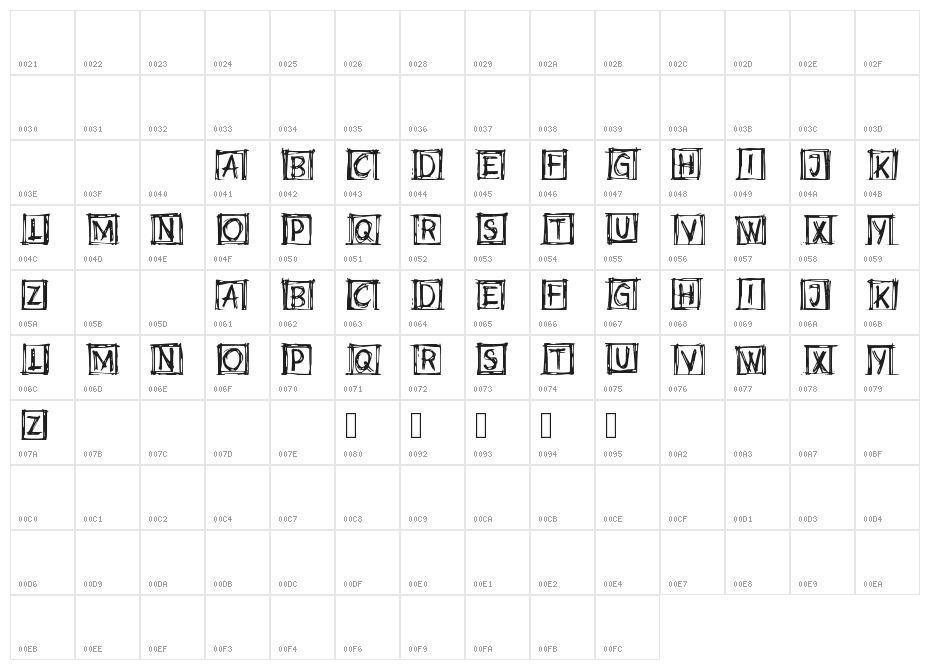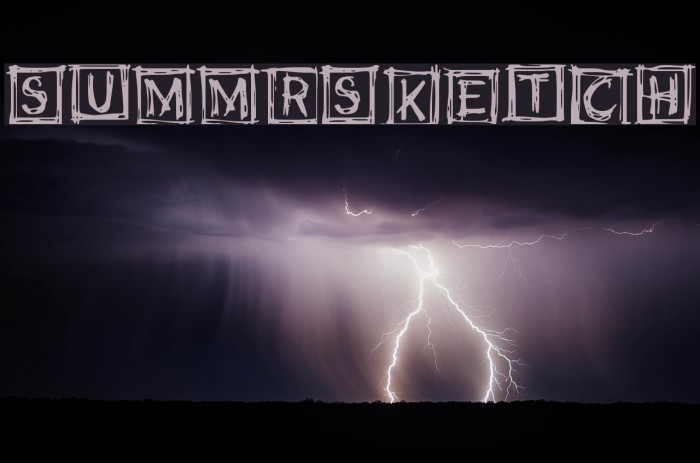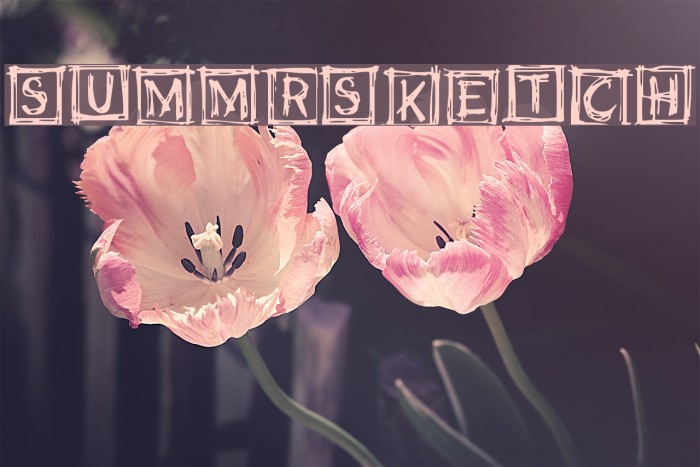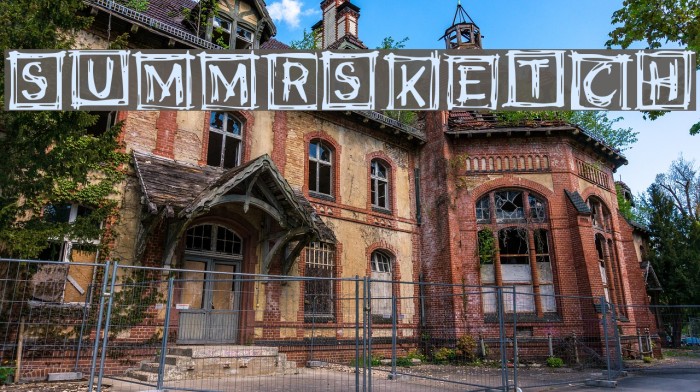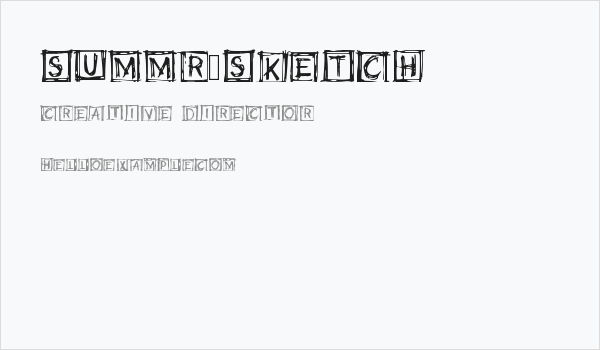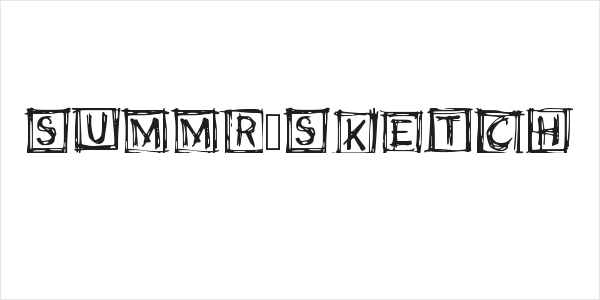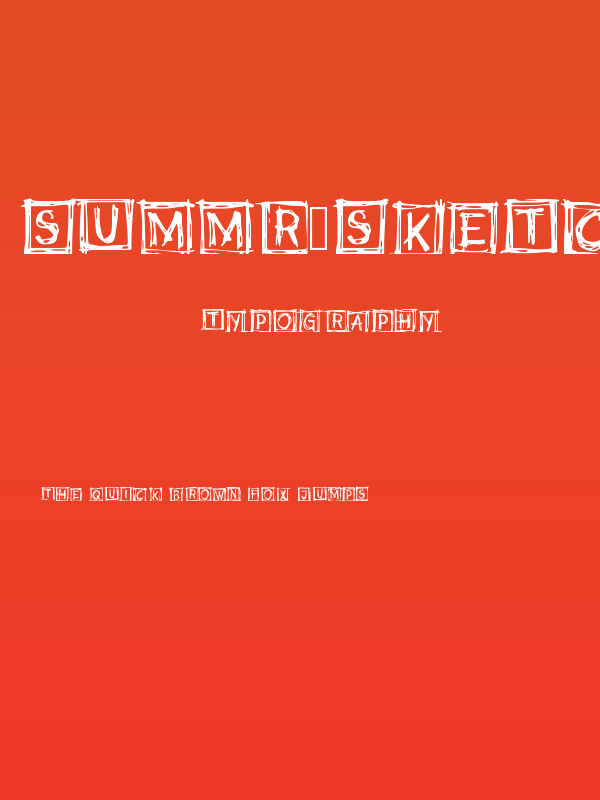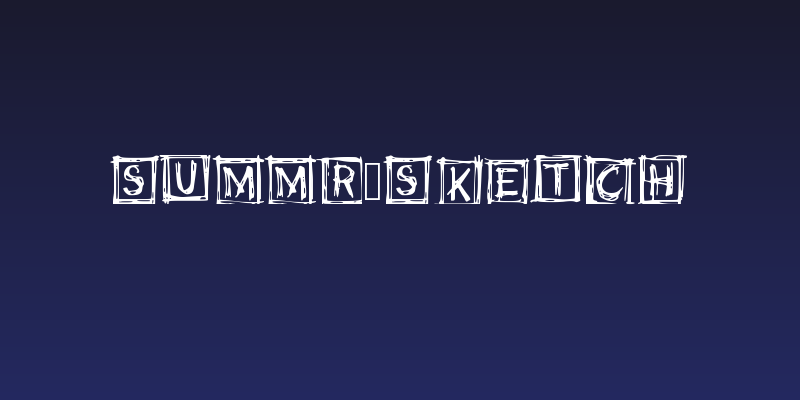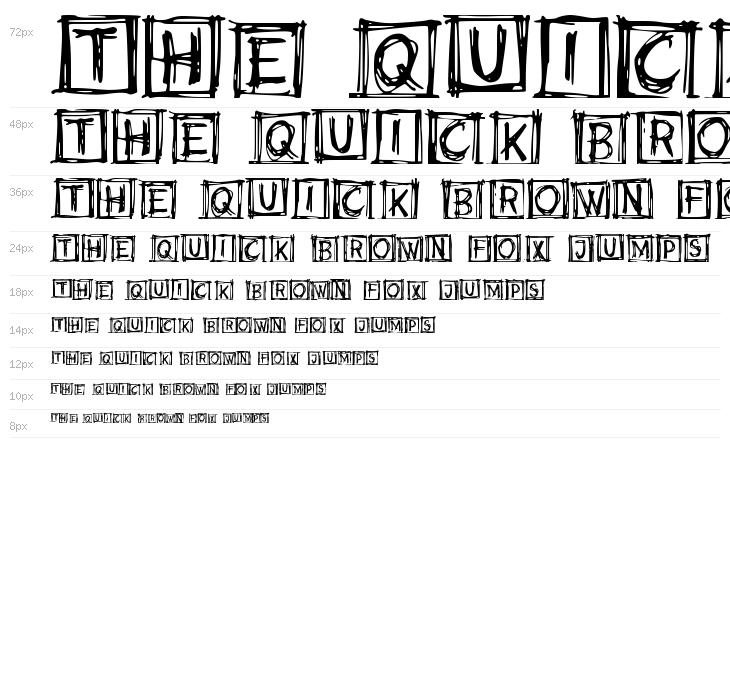
summr_sketch Font
summr_sketch Description
This font features a playful and sketch-like design, characterized by its hand-drawn appearance. Each letter is enclosed in a rough, square-like border, giving it a unique and artistic feel. The strokes are uneven and mimic the look of a pen or marker, adding to its casual and informal style. This font is ideal for projects that require a creative and whimsical touch, such as children's books, art projects, or informal invitations. The irregularity in the strokes and the boxed-in letters create a sense of movement and spontaneity, making it stand out in any design.
| Overall Style | Whimsical, Artistic |
| Use Case | Headlines, Creative projects |
| Proposed Projects | Ideal for children's books, art projects, informal invitations, and creative designs. |